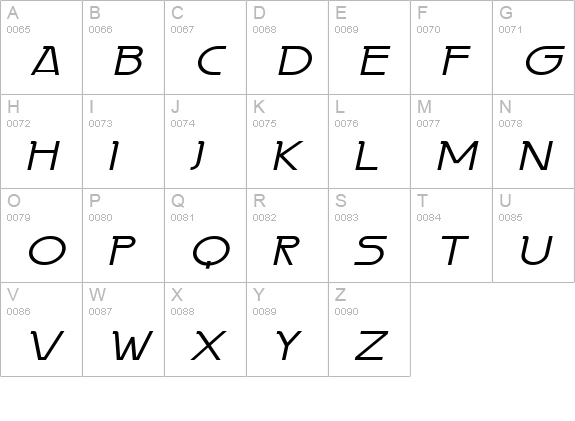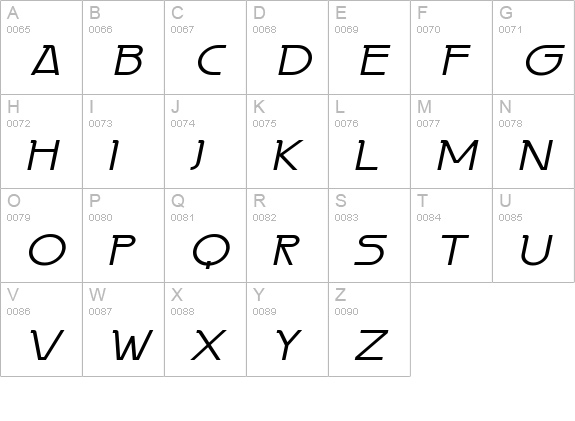
Persia Wide Italic Font Details
Persia Wide Italic is a distinctive, extended-width, italic variant in the Persia typeface family \xE2\x80\x94 well suited to design and typography projects.
Persia Wide Italic font is an exquisite and elegant typeface that effortlessly blends sophistication with a touch of playfulness. Its italicized design adds a dynamic and stylish flair to any project, making it the perfect choice for those seeking a font that is both captivating and versatile. With its wide proportions, Persia Wide Italic commands attention and creates a bold statement. Whether used for headlines, logos, or body text, this font will undoubtedly grab the viewer's eye and leave a lasting impression. The flowing curves and graceful strokes of Persia Wide Italic give it a sense of movement and energy, making it an ideal choice for projects that require a sense of vitality and modernity. Its unique personality adds a touch of distinction, ensuring that your designs stand out from the crowd. And the best part? Persia Wide Italic is available for free download at FontsMarket.com! This means that you can easily access and utilize this stunning font for all your creative endeavors without any cost. It's a fantastic opportunity to enhance your projects without breaking the bank. So why wait? Download Persia Wide Italic today and let its beauty and versatility elevate your designs to new heights. Whether you're designing branding materials, advertising campaigns, or even personal projects, this font will undoubtedly bring a touch of elegance and sophistication to your work. Don't miss out on this incredible free font – seize the opportunity to create stunning designs with Persia Wide Italic.